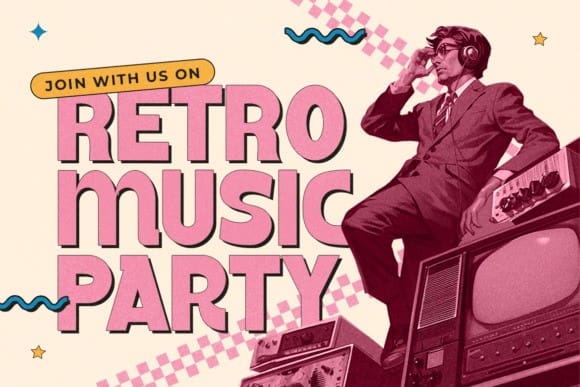
Rodnick Retro Font
Rodnick Retro Font is a bold, bubbly, and beautifully groovy retro display font that’s ready to transport your designs straight to the swinging ’60s and ’70s. With its smooth curves, soft rounded edges, and substantial weight, Rodnick embodies that unmistakable vintage flair, making it perfect for designers looking to inject a playful and nostalgic spirit into their work.
This typeface isn’t just a nod to the past—it’s built for modern digital design. Its charming, eye-catching style is ideal for headlines, titles, and short, impactful branding that needs to stand out.
– Bold, Playful Style: A heavyweight, highly legible display font with a distinctive, fun retro aesthetic.
– Full Basic Characters: Includes all standard uppercase (A-Z), lowercase (a-z), and numerals (0-9).
– Extensive Multilingual Support: Features a wide range of accented characters and international glyphs, ensuring your design speaks to a global audience.
– Alternate and Ligature Glyphs: Get creative with multiple stylistic alternates and flowing ligatures that enhance the vintage look and allow for unique, customized type arrangements.
– Perfect for Branding: Excellent for logotypes, product packaging, posters, apparel, social media graphics, and website headers that need a touch of nostalgic charm.
Whether you’re creating a psychedelic poster, a cheerful logo, or vibrant t-shirt designs, Rodnick is the essential typeface for all things retro and fun!